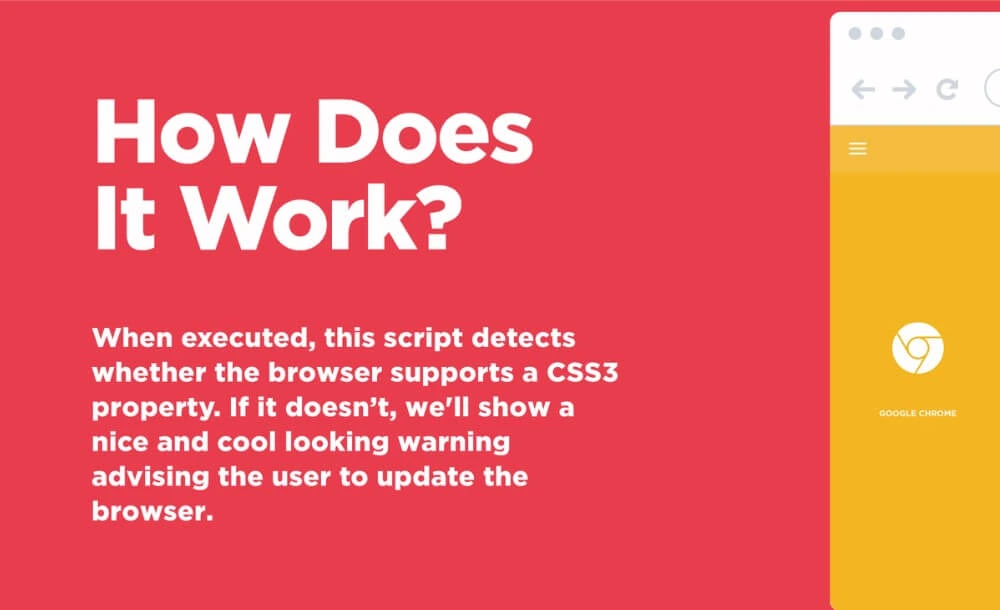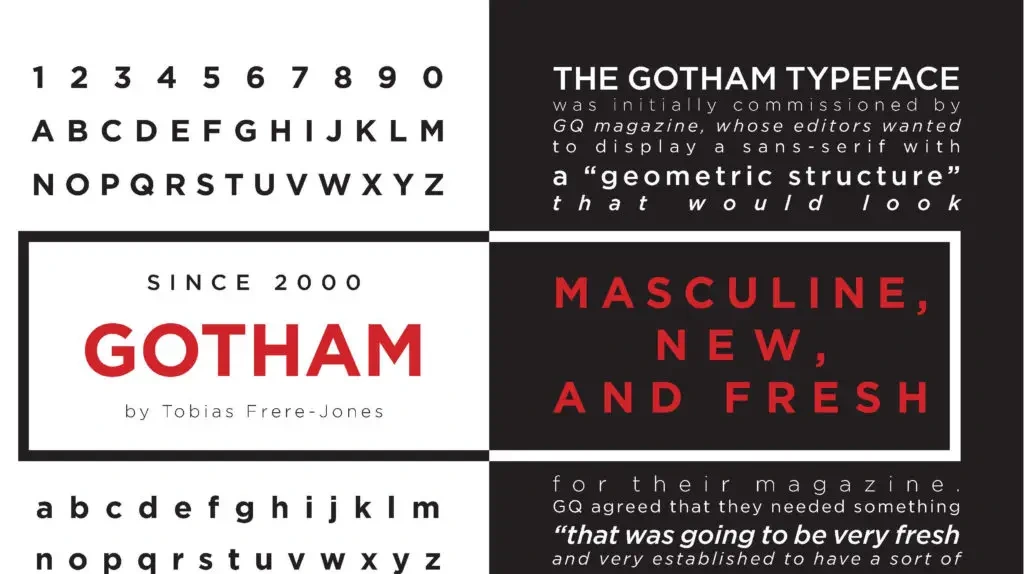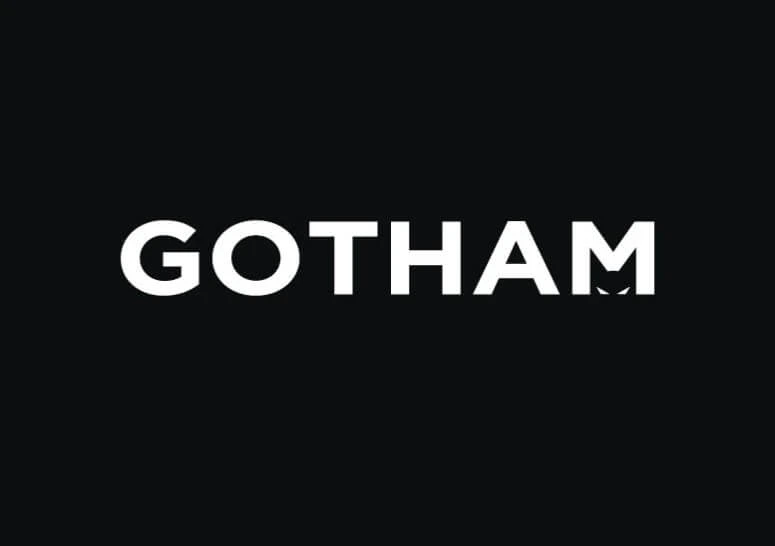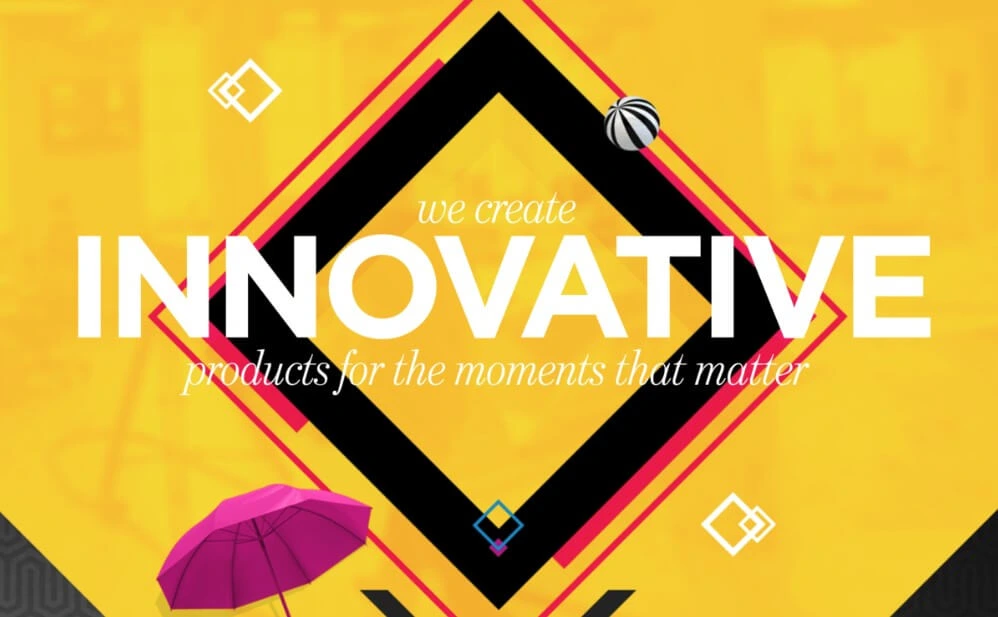
If you are looking for one of the most famous font on the web then you have just landed on the right page. As here we have shared the Gotham font, which is the most popular font on the web and every designer out there just love this font.
Gotham font was designed by a professional American designer tobias frere jones in 2000 and after its release. It got the attraction of many designers from around the world.
DesignerTobias Frere-Jones
FoundryHoefler & Co.
TypeSans-serif
Date Released2000